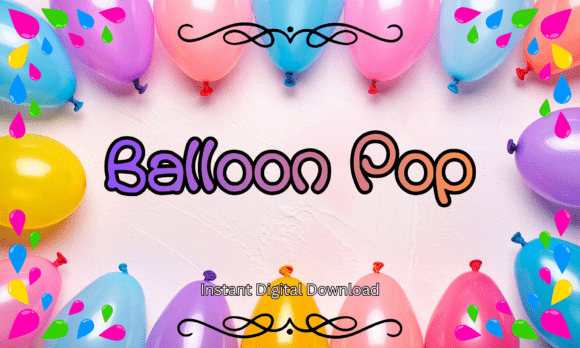
Introduction to Balloon Pop Font
Bring your designs to life with Balloon Pop, a playful and bubbly display font inspired by colorful balloons and fun celebrations.
Why Choose Balloon Pop Font?
Balloon Pop Font offers exceptional quality and versatility, making it a valuable addition to your design toolkit. Whether you’re creating for personal projects or commercial use, Balloon Pop Font delivers professional results.